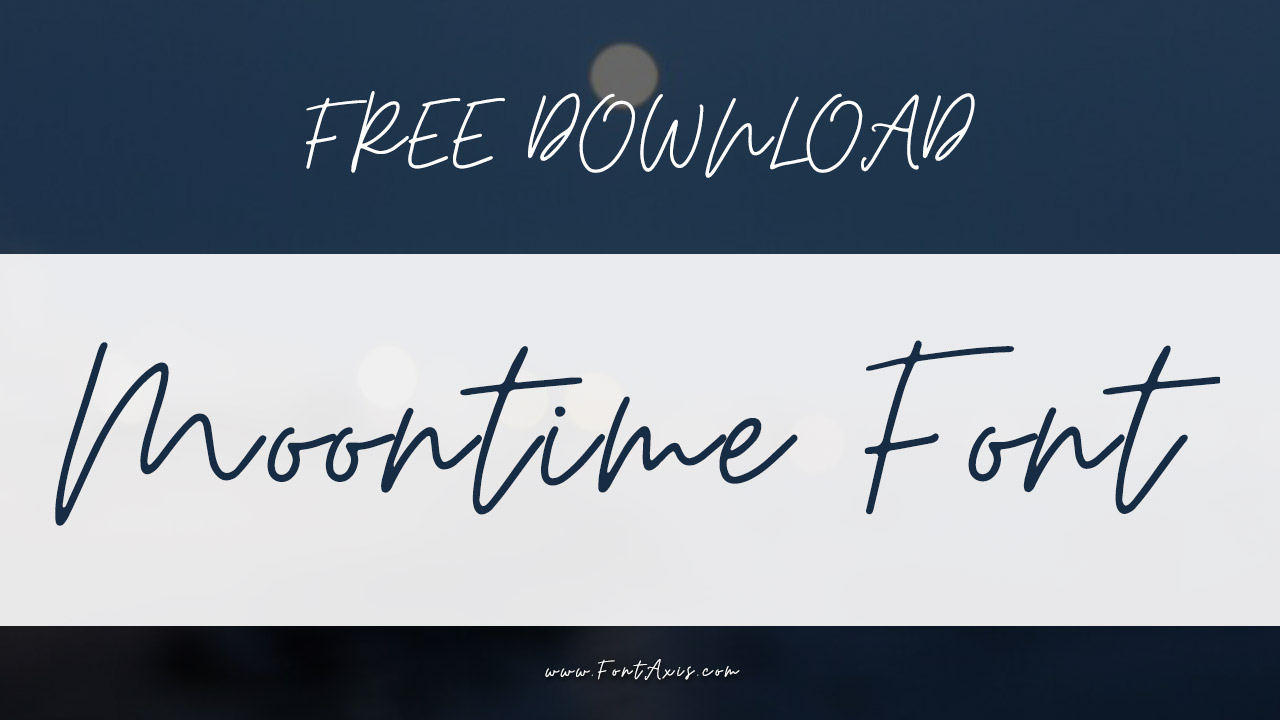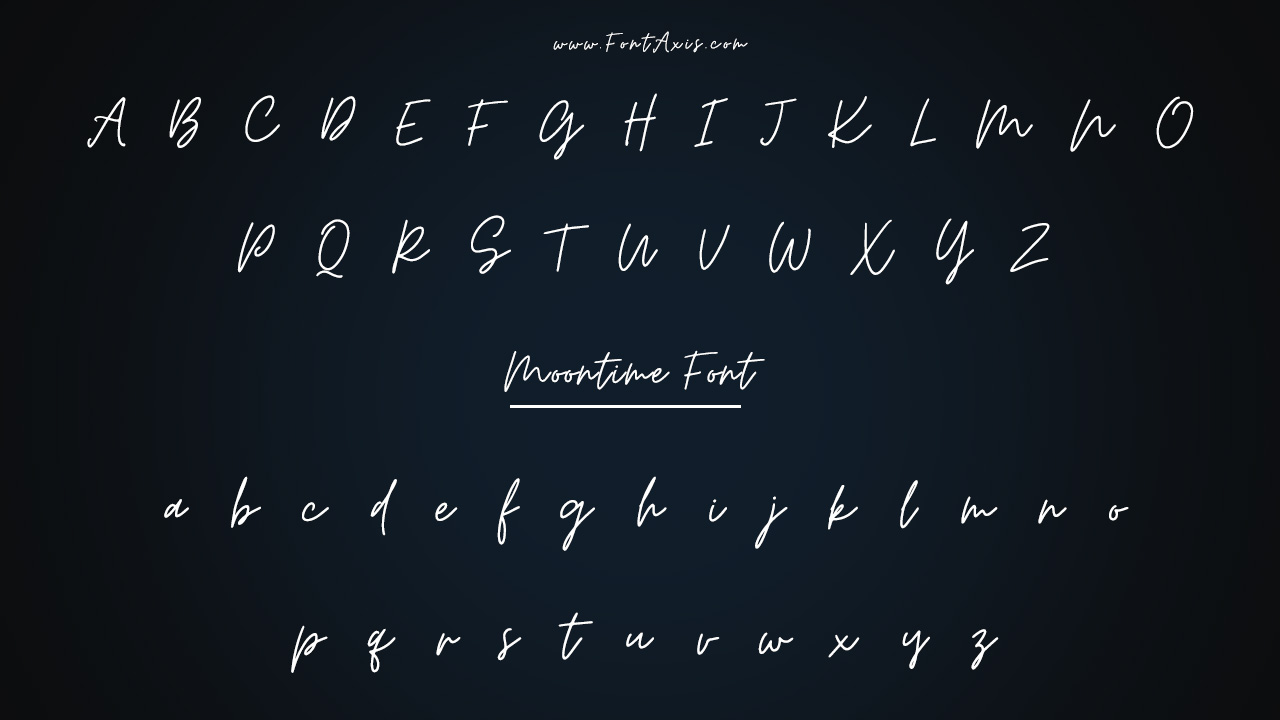
Moontime Font, a stunning modern calligraphy script font, was designed by Dima Evans. Published as a handwritten script font, it combines vintage charm with contemporary style.
First released as a free font for personal use, Moontime is ideal for creating beautiful lettering projects, from wedding stationery to branding and beyond.
Where Moontime Font Is In Use
- Wedding lettering: Invitations, save-the-date cards, and programs
- Logo font: Branding for fashion, lifestyle, or boutique businesses
- Typography projects: Designing beautiful frames or greeting cards
- Magazines and book covers: Stylish covers for small books and digital publications
- Stationery: Personalizing notepads, letters, or business cards
- Vintage fonts aesthetics: Adding charm to retro-inspired designs
Moontime Font is a versatile and elegant modern calligraphy script that blends vintage charm with contemporary style. Its graceful curves, decorative swashes, and multilingual support make it ideal for wedding stationery, logos, and typography projects. Whether you’re designing for personal or professional use, Moontime adds a unique and timeless touch to any creative project.
Yes, Moontime Font includes multilingual support and a variety of special characters, such as accented letters and symbols. This makes it highly versatile for projects in different languages or designs requiring intricate details.
5.What Makes Moontime Font Unique?
Moontime Font stands out for its perfect vintage charm and contemporary elegance blend. Its graceful curves, stylish decorative swashes, and handwritten feel make it ideal for projects that demand sophistication and a touch of romance.
Yes, Moontime Font is a fantastic choice for creating stunning social media graphics. Its modern calligraphy style and decorative swashes add a unique flair to posts, headers, banners, and story designs.
Whether you’re crafting eye-catching Instagram captions, elegant Facebook covers, or promotional content, Moontime Font ensures your visuals stand out and make a lasting impression.